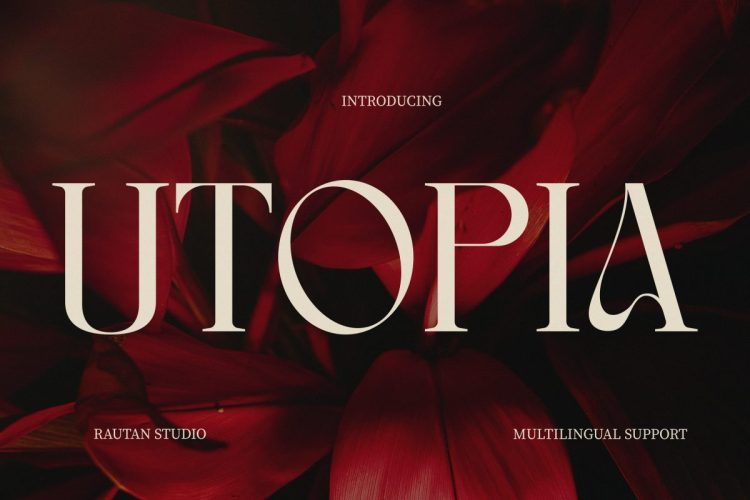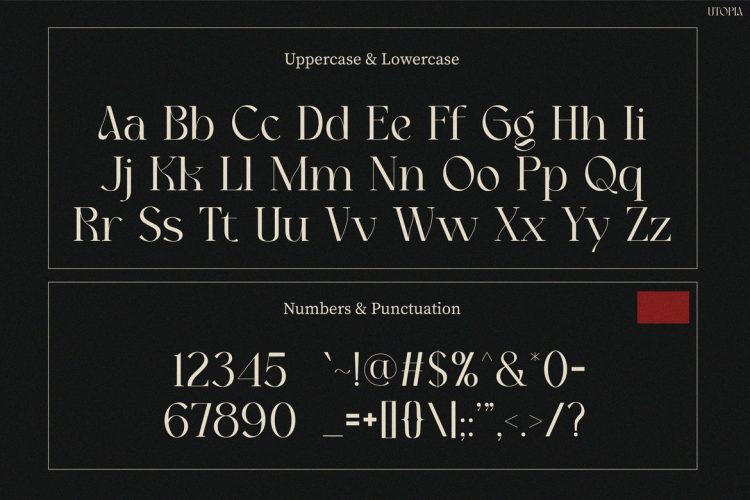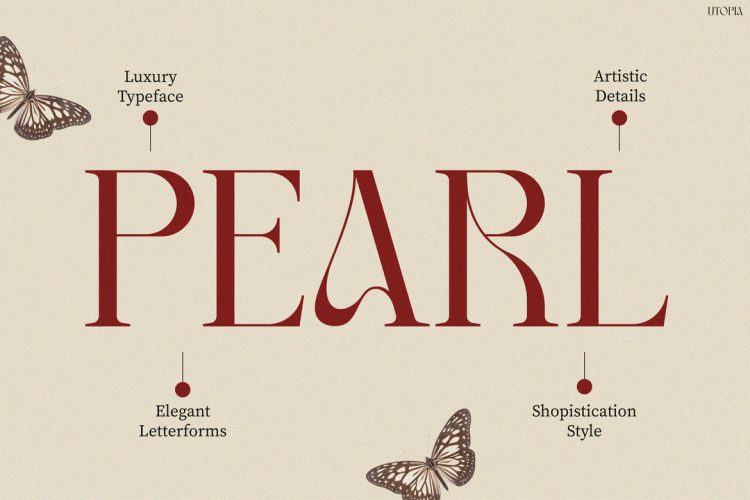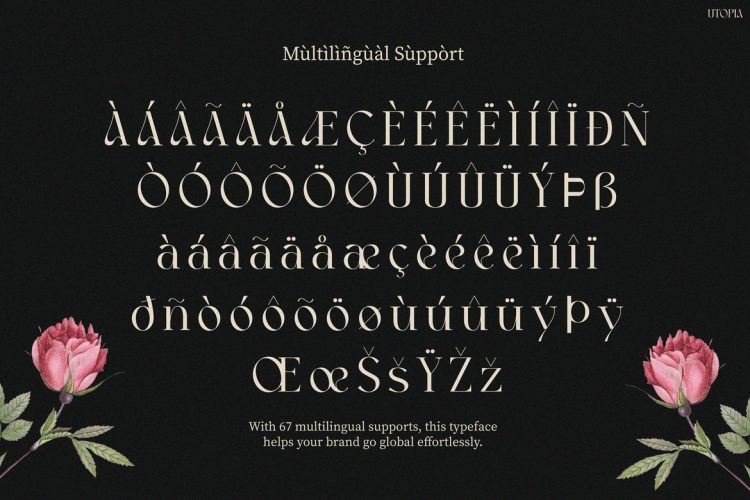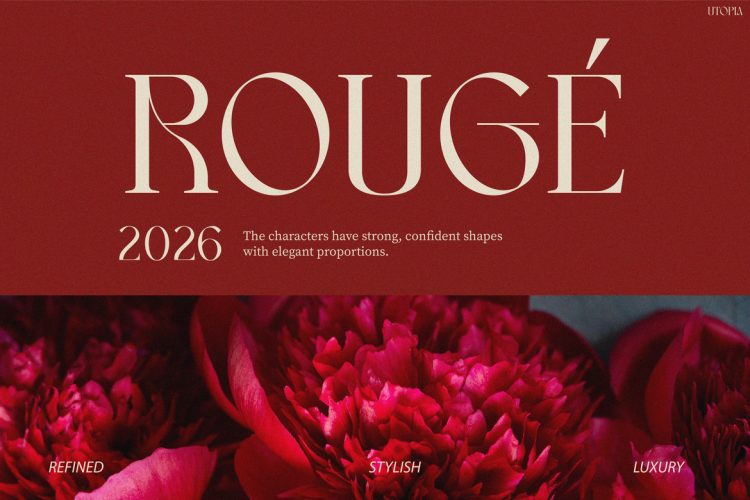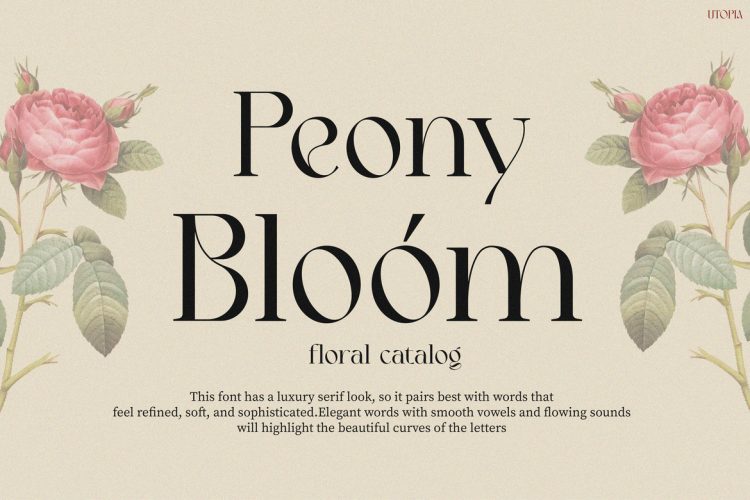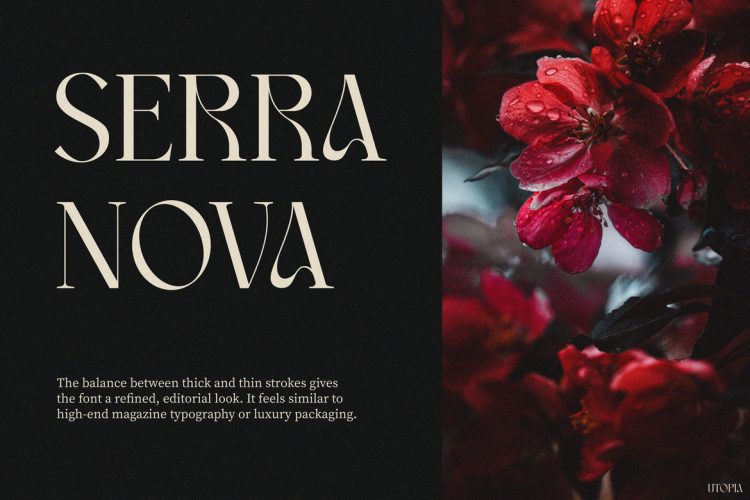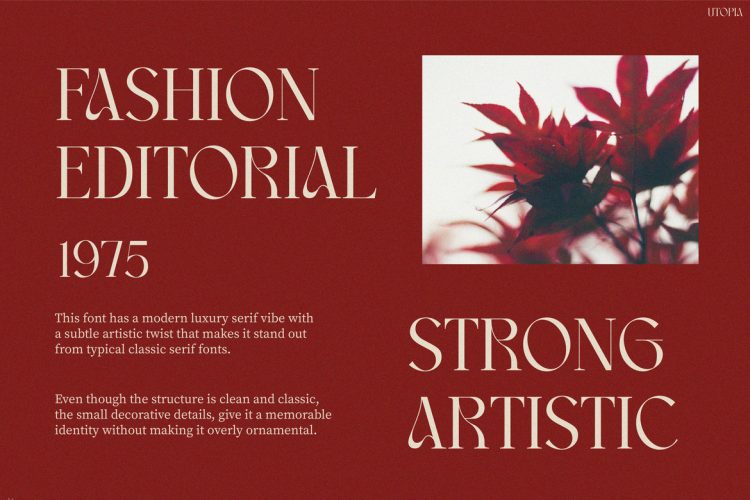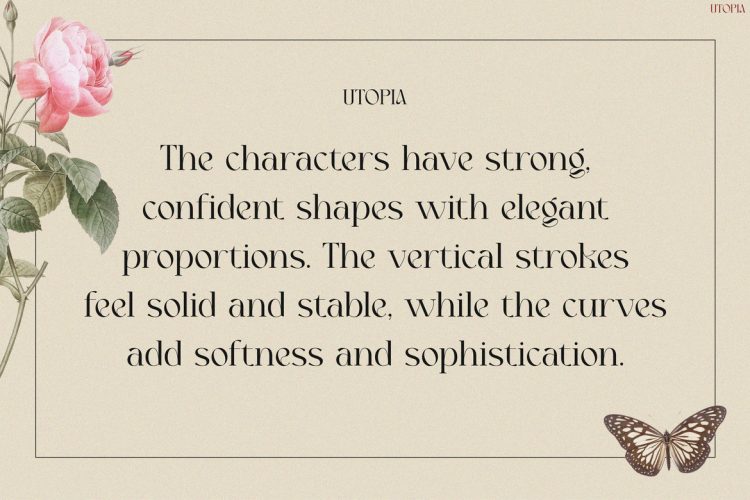
Elegant Vintage Expression โ Retro Font Utopia
Retro Font Utopia delivers a refined vintage aesthetic that blends timeless elegance with strong editorial character. Inspired by classic fashion typography and artistic print design, this font combines confident vertical strokes with graceful curves. As a result, it creates a striking balance between strength and sophistication. The letterforms feel bold yet delicate, which instantly elevates headlines and branding visuals. Moreover, its stylish proportions and artistic details make every composition look polished and expressive. Because of its distinctive design, Retro Font Utopia transforms simple text into captivating visual storytelling. In addition, the font performs beautifully across both digital and print layouts. With support for 67 languages, designers and creators can communicate with elegance while reaching a global audience.
Retro Font Utopia is a stylish retro-inspired serif display font designed to create powerful and elegant typography. First, the letterforms feature strong vertical structures that bring confidence and clarity to headlines. At the same time, the soft curves introduce warmth and artistic charm. Because of this balance, the font feels both bold and refined.
Furthermore, Retro Font Utopia works perfectly for projects that demand visual sophistication. For example, it shines in fashion editorials, beauty branding, magazine titles, and luxury packaging. In addition, the clean spacing and balanced structure keep text readable while maintaining a strong visual presence. Therefore, designers can build layouts that look both dramatic and harmonious. Whether used for large headlines or stylish branding elements, this typeface brings timeless beauty and artistic expression to every design.
Retro Font Utopia is ideal for graphic designers, fashion brands, creative studios, content creators, and branding specialists who want typography that feels elegant and distinctive. In particular, it works beautifully for fashion editorials, beauty product packaging, magazine covers, luxury branding, Instagram graphics, boutique logos, and aesthetic lifestyle content. Moreover, it is perfect for creative campaigns that require stylish and memorable typography.